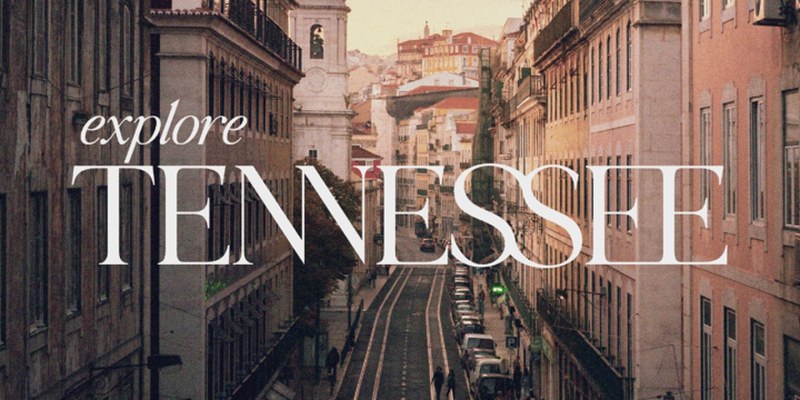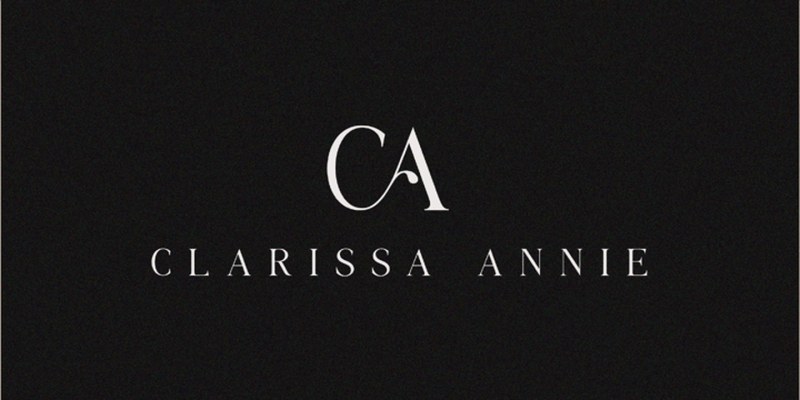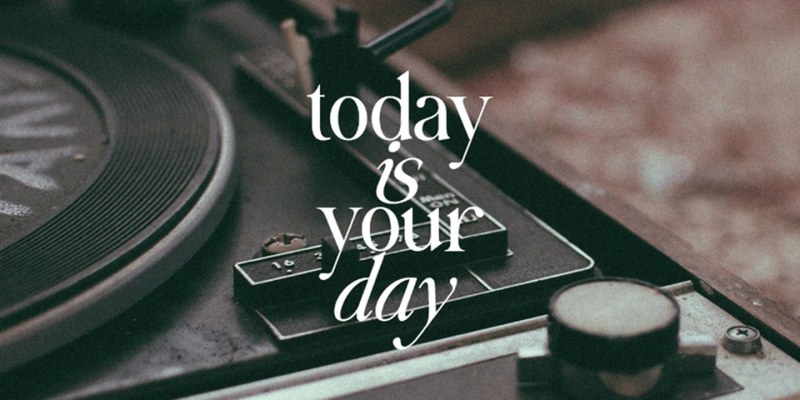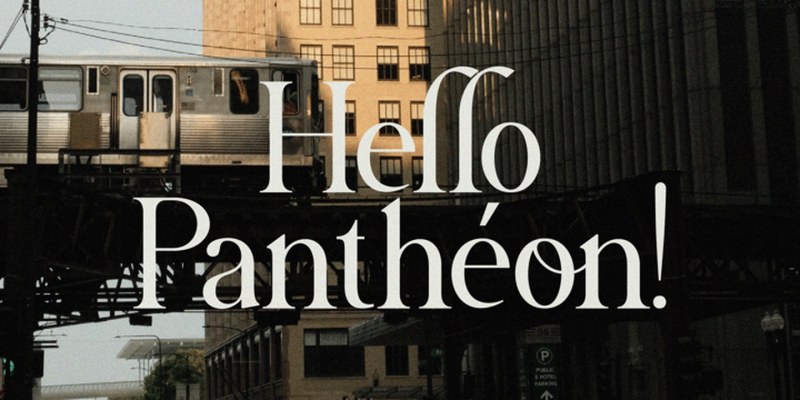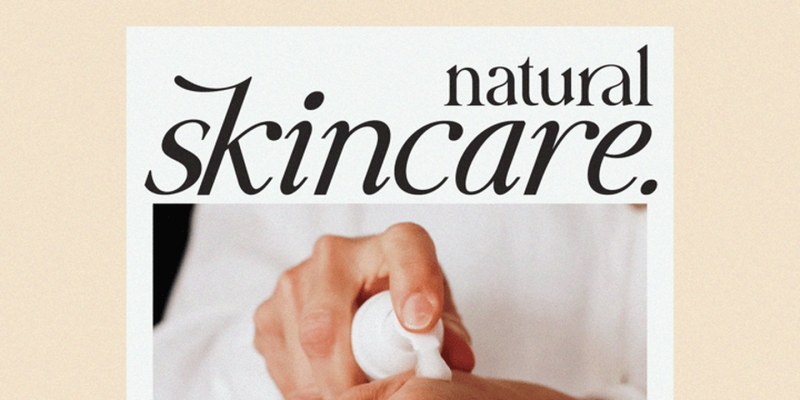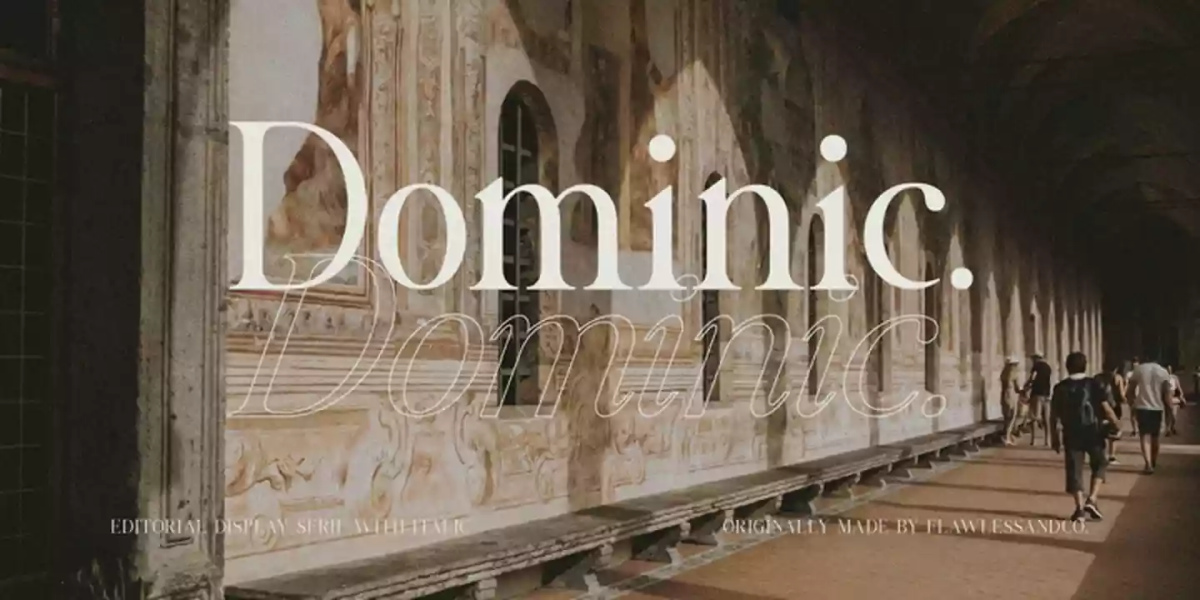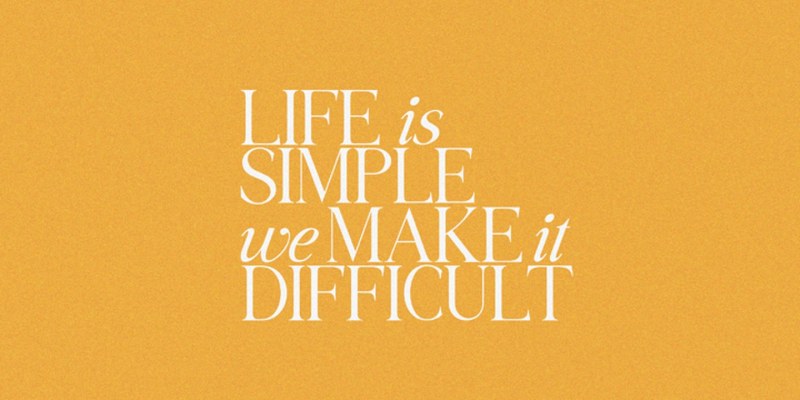
Dominic Font Family
Dominic is a Serif Italic Font with a classy and elegant style in each character, so it’s fitted for some wedding invitation display. There’s some connected letters and…
Dominic is a Serif Italic Font with a classy and elegant style in each character, so it’s fitted for some wedding invitation display. There’s some connected letters and some alternates that suitable for any graphic designs such as branding materials, t-shirt, print, business cards, logo, poster, t-shirt, photography, quotes, etc. This font support for some multilingual. Also contains uppercase A-Z and lowercase a-z, alternate character, numbers 0-9, and some punctuation.
Where Dominic Font Family works best
Dominic Font Family gives long-form text a classic, trustworthy rhythm — ideal for magazine spreads, annual reports and book interiors.
Pair Dominic Font Family with generous letter-spacing for wordmarks in fashion, hospitality, wine and jewellery branding.
Use Dominic Font Family for slide titles in Keynote, PowerPoint or Google Slides to add authority without looking dated.
What is Dominic Font Family good for?